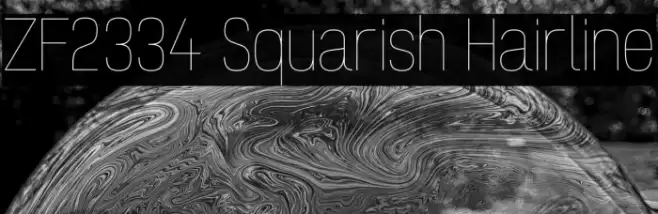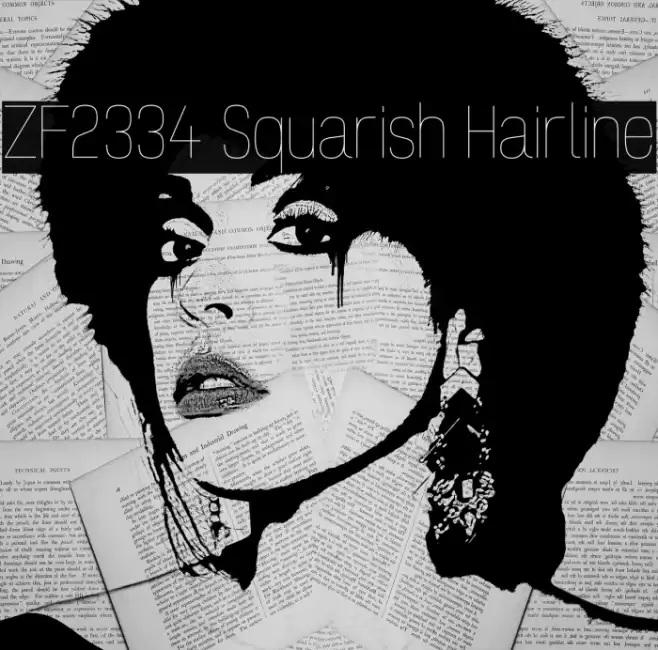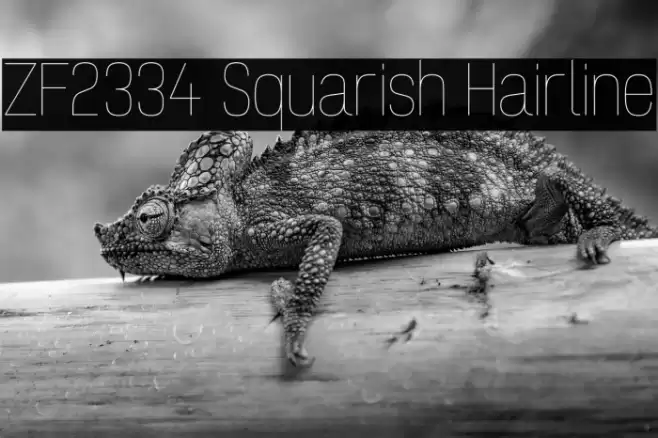
( Updated : Multilingual support has been added; The Italic style has been removed as it looks too weird; 2 styles have been added : Light and Hairline. ZF2334 Squarish is a condensed monoline sans-serif font. It is similar to Helvetica Condensed. Lice FREE )
ZF2334 Squarish Hairline Font